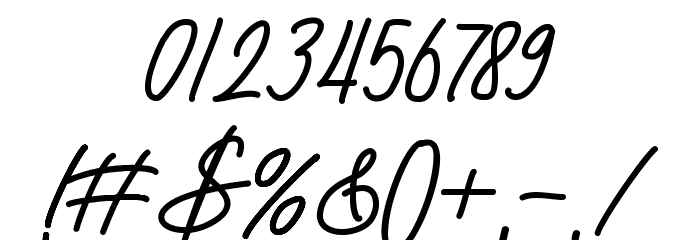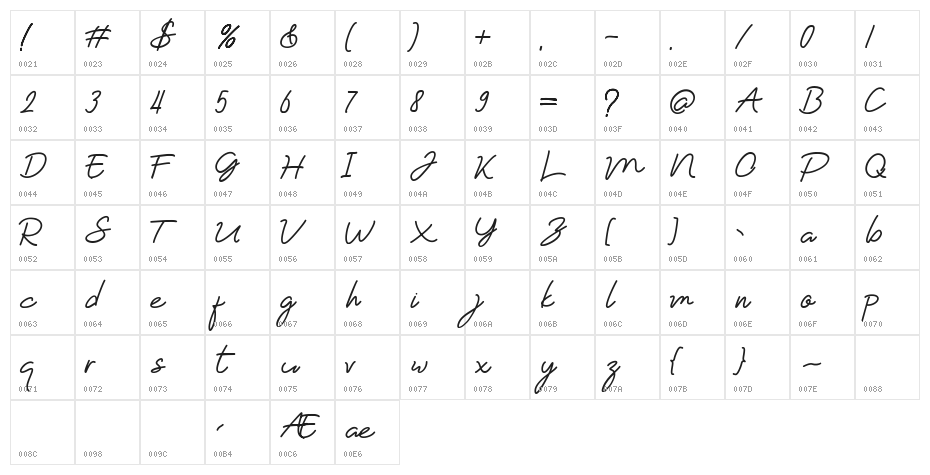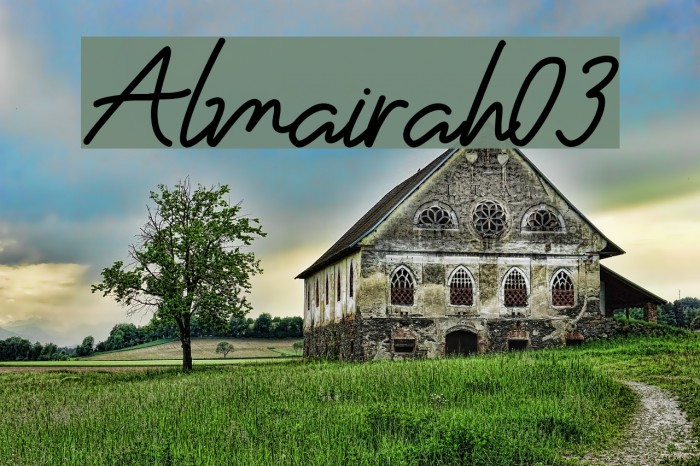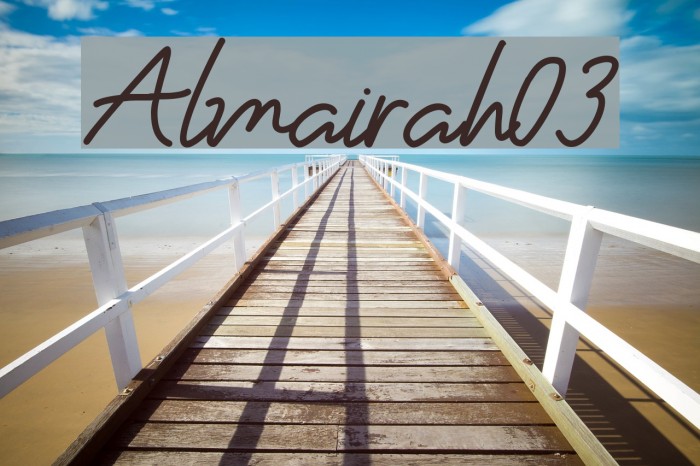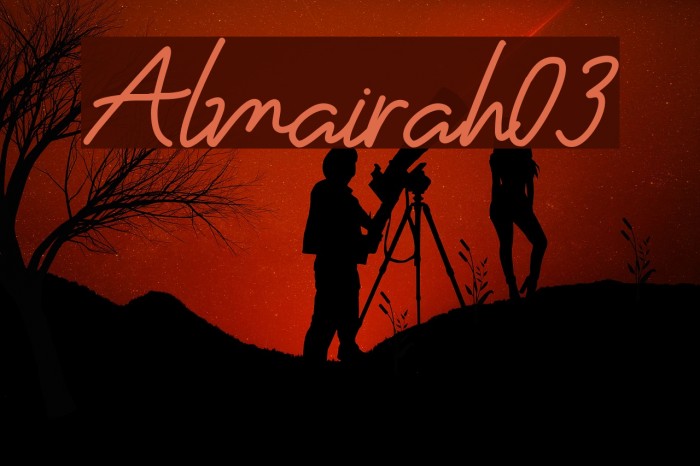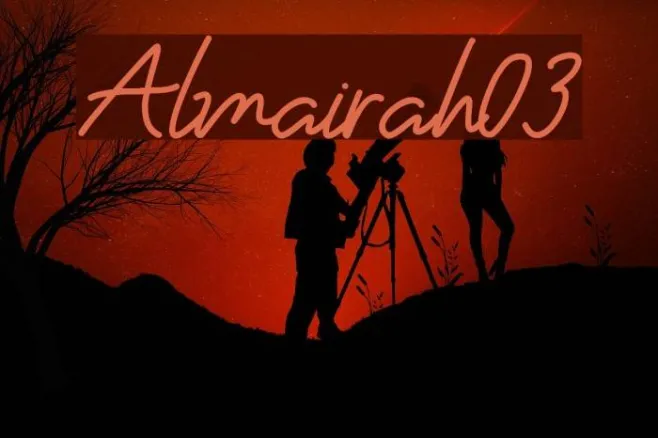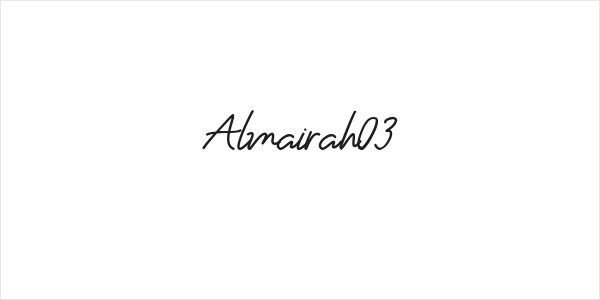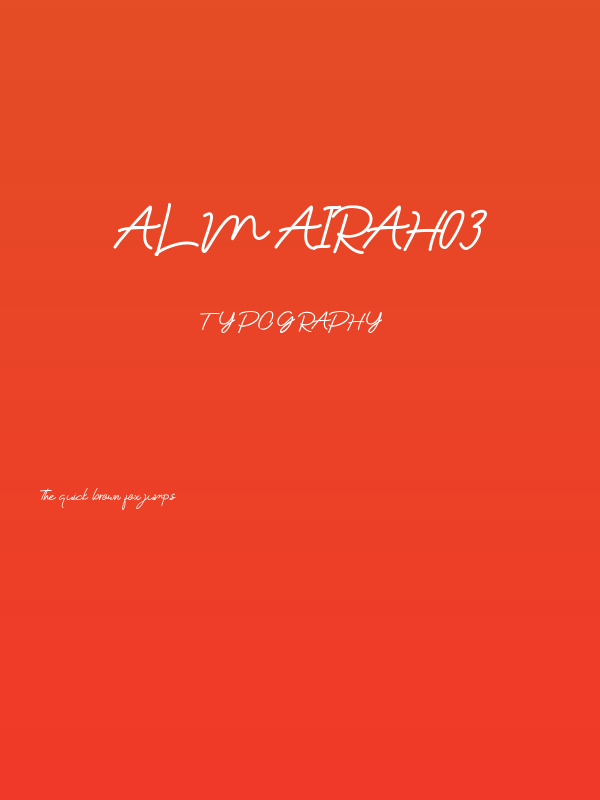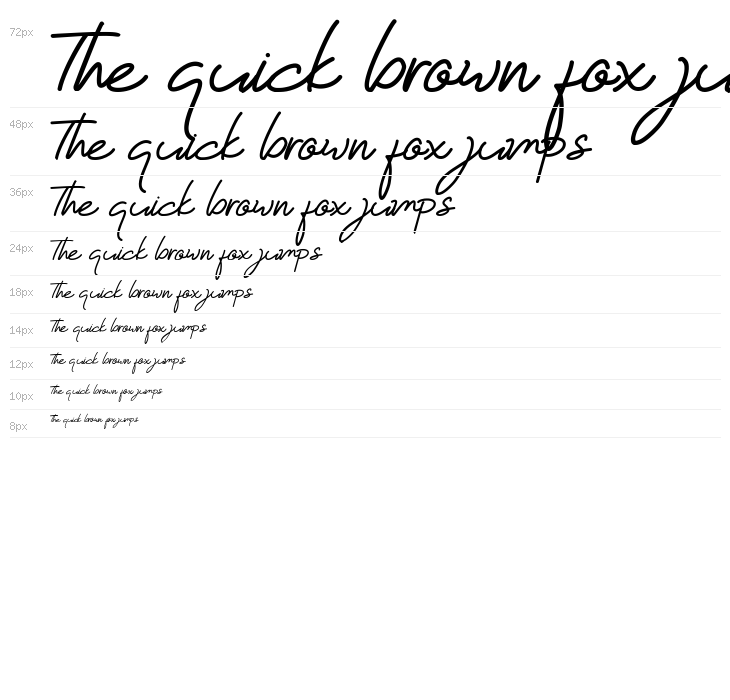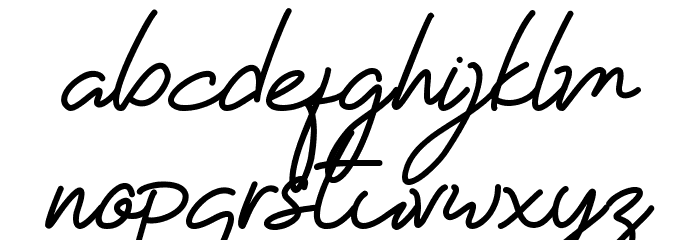
Almairah03 Font
Almairah03 Description
This font features a flowing, cursive style with elegant, sweeping lines that give it a handwritten appearance. The characters are connected, creating a sense of continuity and fluidity. The uppercase letters are slightly larger and more pronounced, while the lowercase letters maintain a consistent height, enhancing readability. The numerals and special characters follow the same cursive style, integrating seamlessly with the alphabet. This font exudes a personal and artistic touch, making it suitable for creative and expressive projects.
| Proposed Projects | Ideal for wedding invitations, greeting cards, personal branding, and artistic projects. |